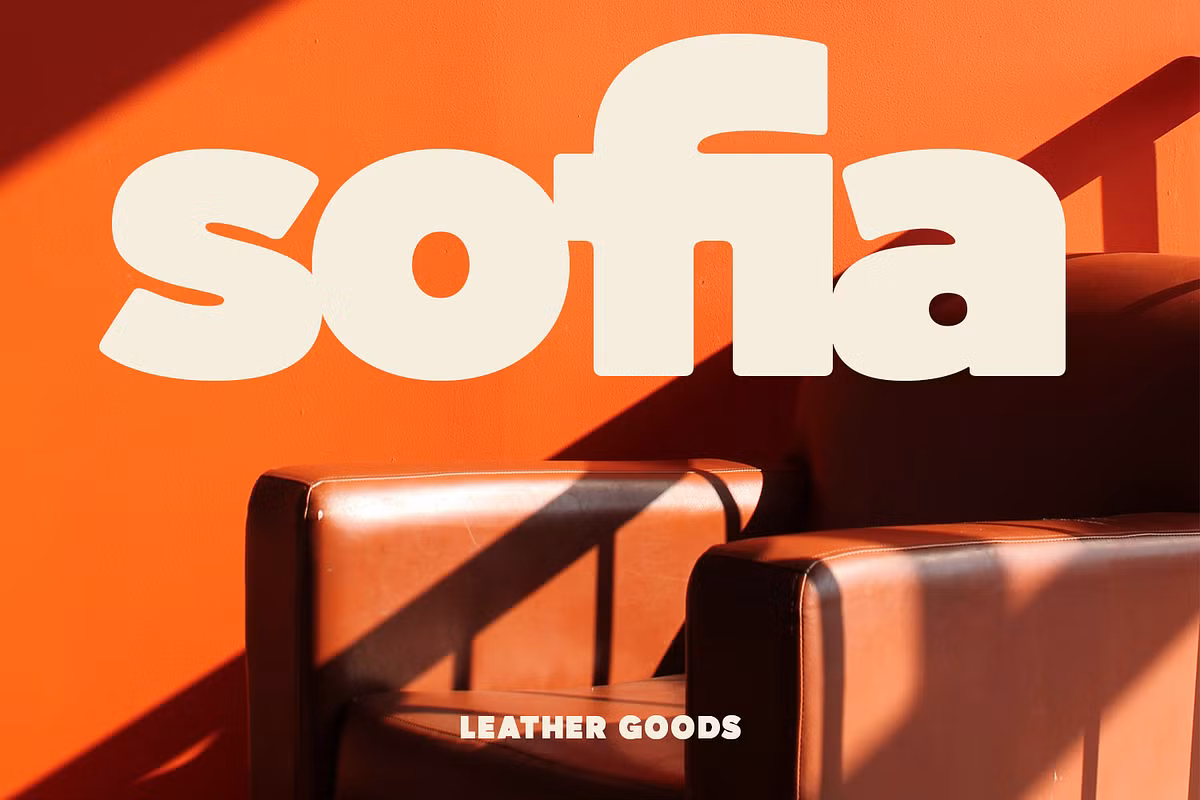
Atelia - Bold Display Font
Atelia: Bold Display Font for Eye-Catching Designs
Introducing Atelia: A Unique Display Font Atelia is more, than a font; Atelia is a design idea. Atelia is an bold display font that offers the look and the friendly approachable feel that captures the audience. Atelia has strokes and smooth curves that create the warm inviting look. Atelia becomes a choice, for design uses. When you are working on branding, packaging, posters or headlines Atelia adds the clean touch to your work.
Example of Atelia font in use for design.
Atelia font showcased in a design example.
Features of Atelia
I have used Atelia. I see that Atelia offers the flexibility. Here are the key features that make Atelia a useful addition, to any designers toolkit:
• Display: Atelia’s thick strokes make the text stand out. Bold Display is good, for headlines and titles.
• Friendly Aesthetic: Rounded edges give a feeling. Rounded edges make Atelia work, for brands that want to show approachability. I notice how the warm feeling helps a brand feel friendly.
• Readability: Even though Atelia looks bold, readability stays good. Readability makes the message get across well. Readability lets the reader see the point, without trouble.
• Versatile Styles: If you are looking for a vibe or a modern look, Atelia adapts to meet the design needs.
Visual representation of Atelia's features.
Features of Atelia font visually represented.
Benefits of Using Atelia in Your Designs
The benefits of using Atelia go beyond the appeal. The reasons to add Atelia to your design projects are:
• Eye-Catching Headlines: I notice Atelia’s boldness draws attention. Atelia works well for the posters, the advertisements and the social media graphics.
• Branding Potential: I have found that if the brand wants to be memorable, Atelia’s unique style can help. Atelia’s unique style helps the brand build an identity.
• Emotional Connection: The font’s friendly look can bring feelings to your audience. Emotional Connection grows when the font’s friendly look helps the audience feel a bond with the brand.
• Freedom: I find Atelia’s versatility lets me try styles and the applications. Atelia’s versatility goes from playful to sophisticated.
Use Cases for Atelia
I have used Atelia for applications. Here are some specific use cases where Atelia shines:
• Branding: I use Atelia for the logos. I use Atelia for the business cards. I use Atelia for the branding materials that need a yet friendly typeface.
• Packaging: I notice that Atelia can make product packaging stand out on the shelves. The product packaging pulls the customer in with an inviting design.
• Advertising: Whether the ad is online or offline, Atelia’s bright look makes Atelia a best pick. I think the advertisements that need to catch attention work with Atelia.
• Event Promotions: Use Atelia for posters and flyers for events to convey excitement and draw in attendees.
Atelia font used in advertising and branding.
Atelia font applied in various design scenarios.
• Pairing Fonts: Atelia pairs with sans serif fonts for the body text. Atelia shines in headings. Atelia keeps the text readable.
• Color Selection: Complement Atelia’s boldness with vibrant colors to enhance its impact and draw attention.
• Contextual Use: Consider the emotional context of your design and use Atelia to reinforce that mood, whether playful, sophisticated, or nostalgic.
Conclusion: Embrace Atelia for Your Next Project
Atelia is more than a font; Atelia is a tool for making designs that catch the eye and connect with people. Atelia mixes the flexible style. If you are building the brand, designing the packaging, or creating the advertisement, Atelia can help you get a look. Atelia will help you get a look. Use Atelia in your design work. Let your creativity shine.